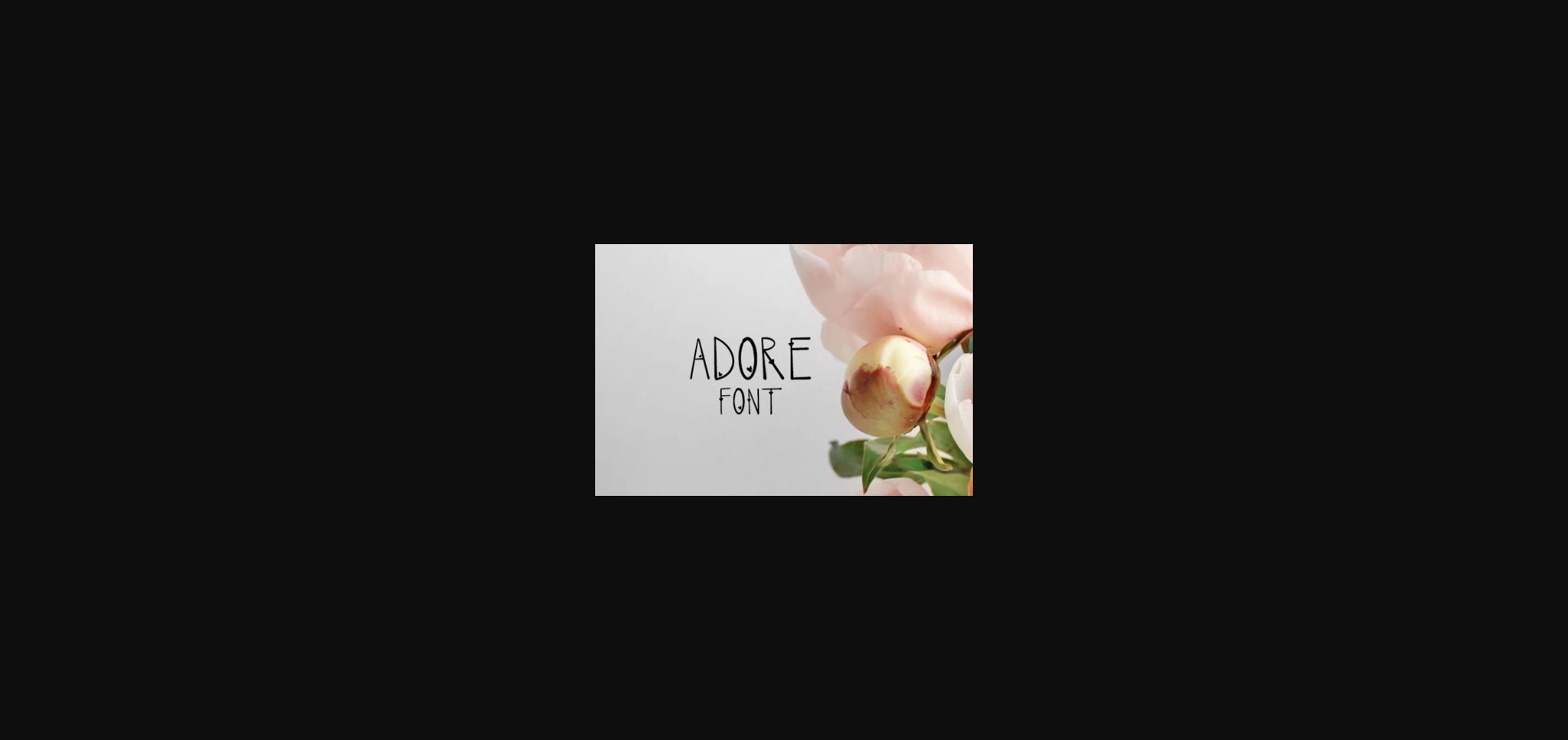
About Adore Font
Adore is a distinct, elegant sans serif font that blends traditional influences into a contemporary aesthetic. Its well balanced Latin details contain distinctive contrasts. Use
Adore to achieve an exquisite, yet subtle look and maximum versatility